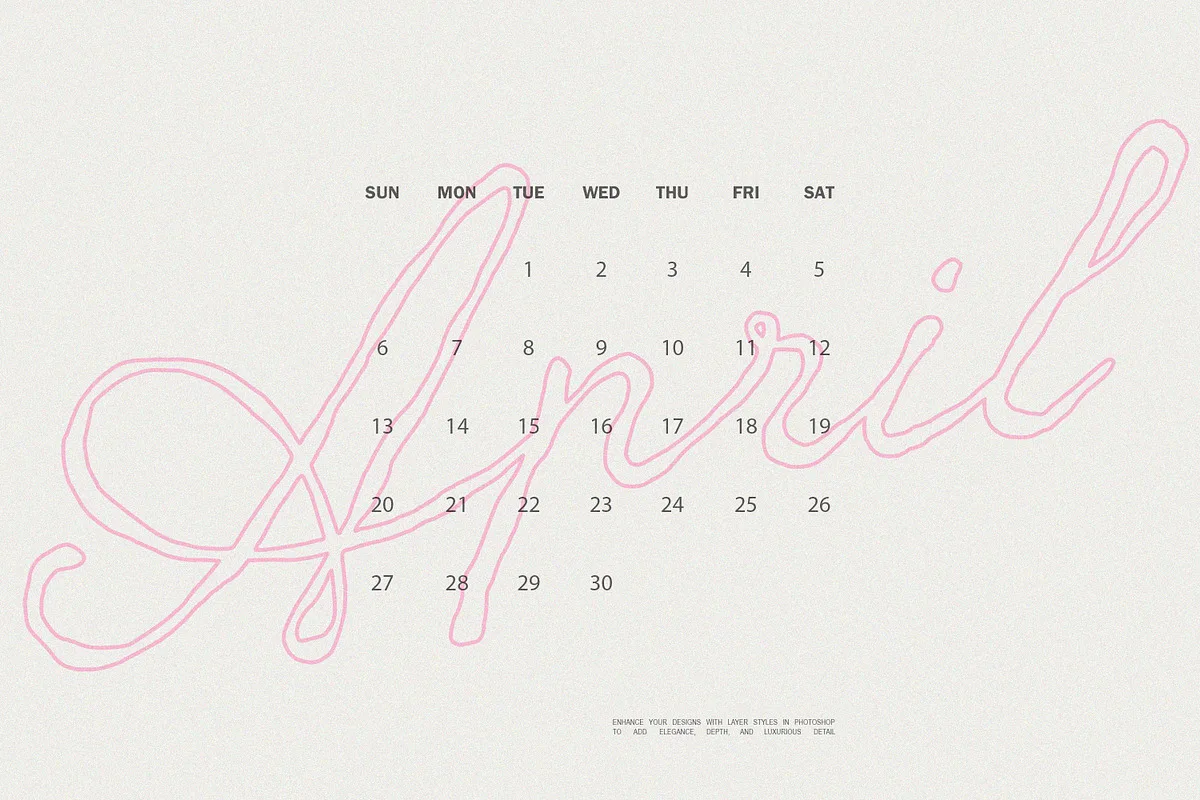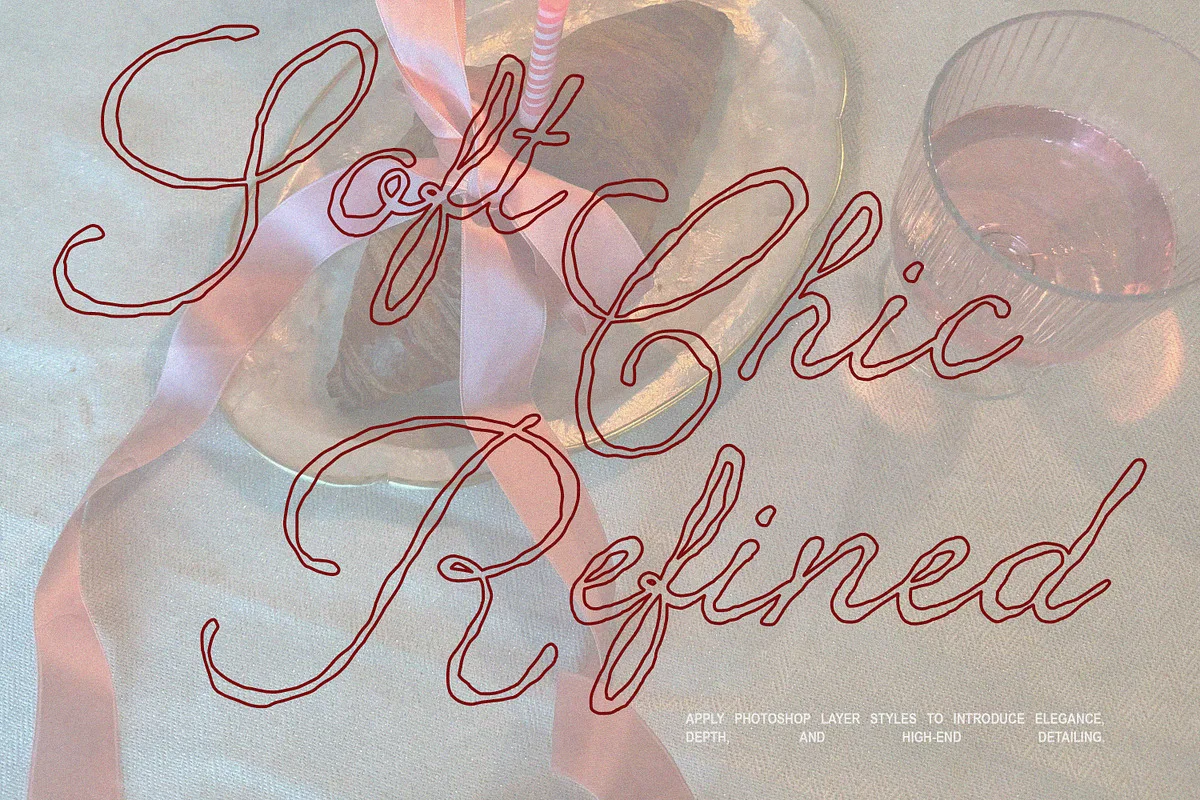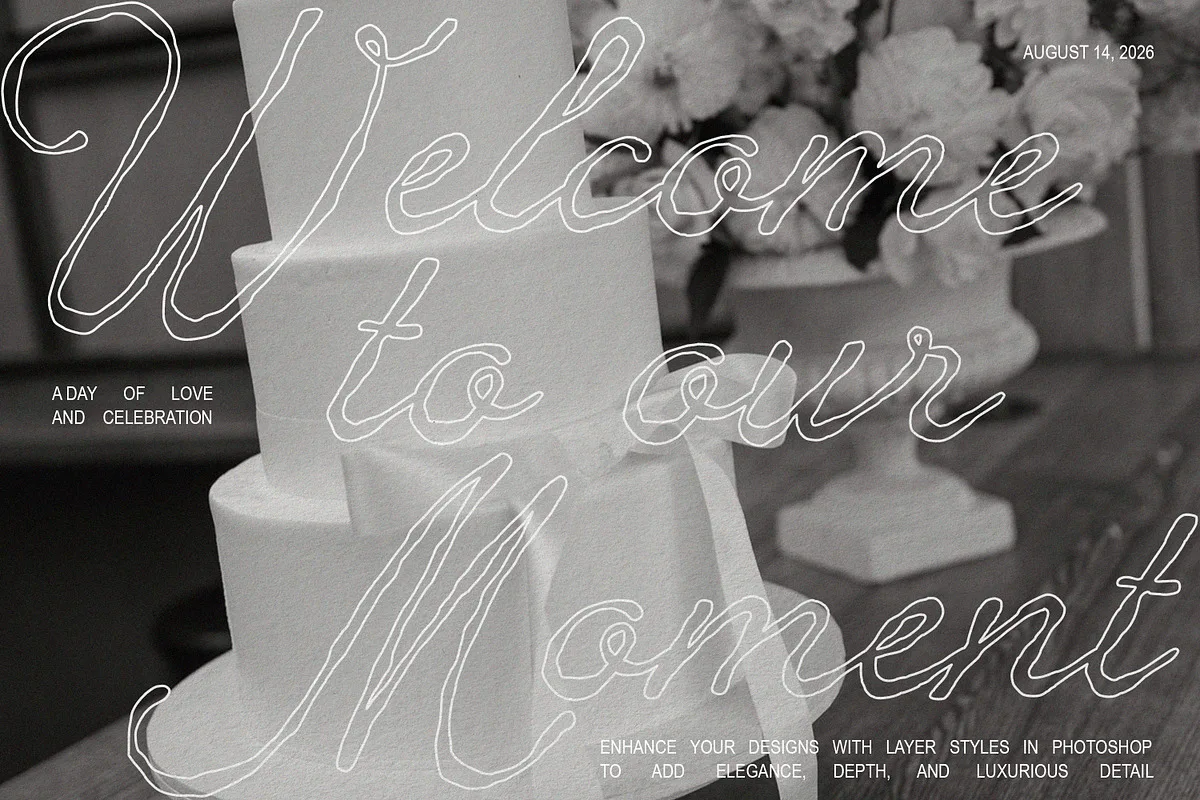
En Clair is a textured script by AnMark. Its rough finish gives short display lettering a more handmade feel than a smooth calligraphic script. It can suit an invitation heading or a brand name when the texture is part of the intended look.
Check the texture at the size of your actual design before choosing it. Fine surface detail that is visible in a large preview may be less distinct on a small card or mobile screen. A clean supporting typeface can keep dates, addresses, and other practical information easy to read.
At a glance
- Style: vintage rough script.
- Best starting point: a short display phrase, with a separate face for small supporting text.
Preview
Inspect the close-up sample for the rough texture, then look at the full words in the other images. Use the seller's live preview to try the exact names, accents, and punctuation your project needs.